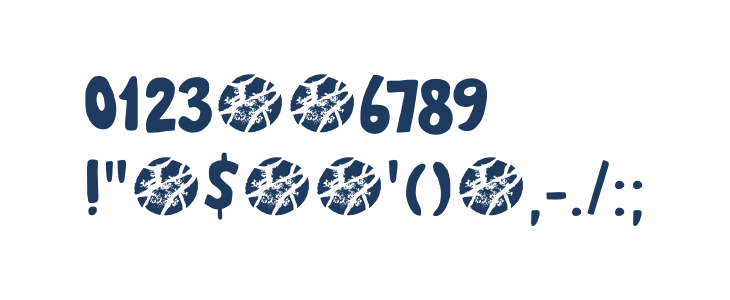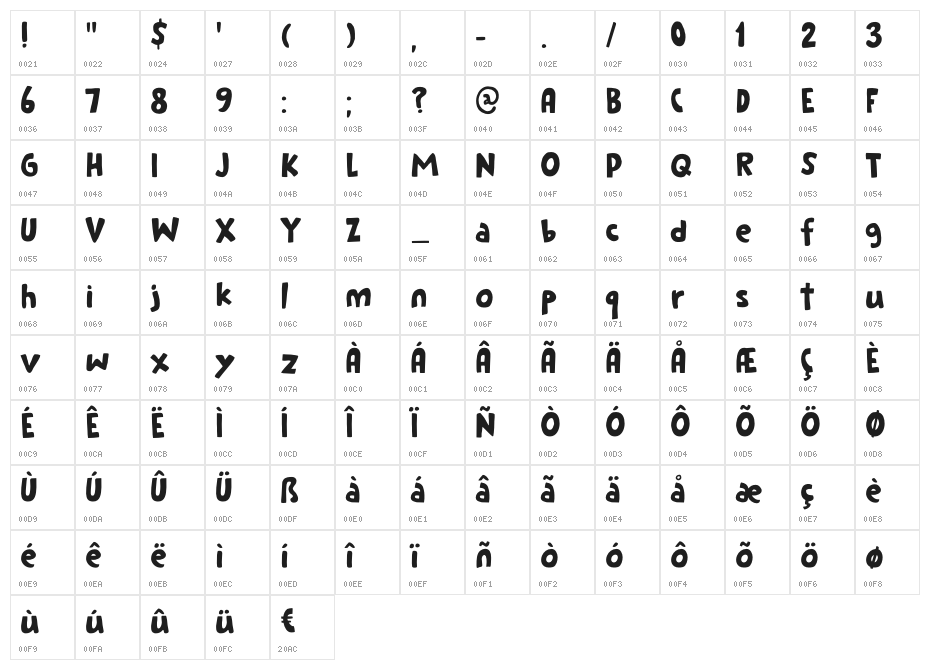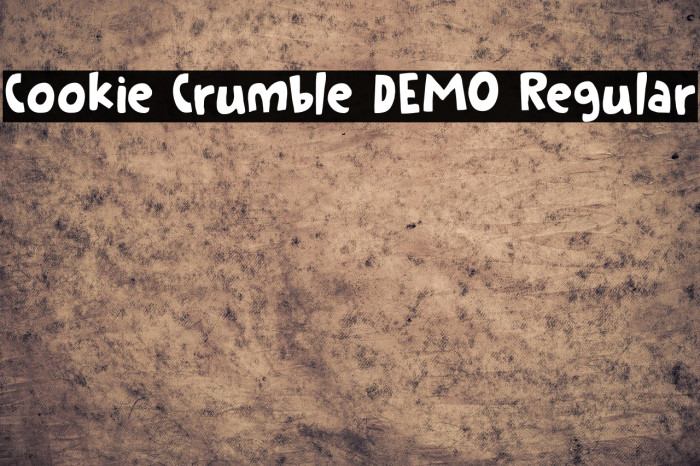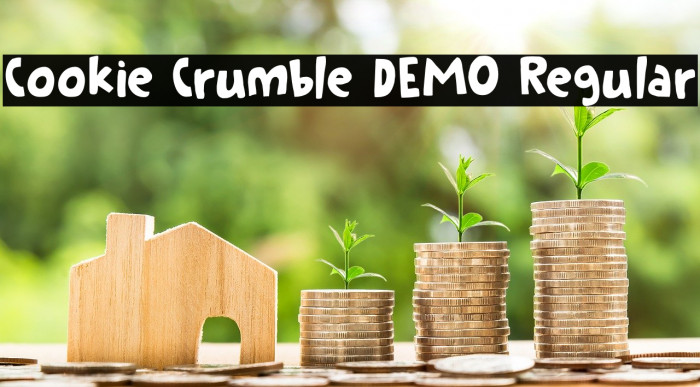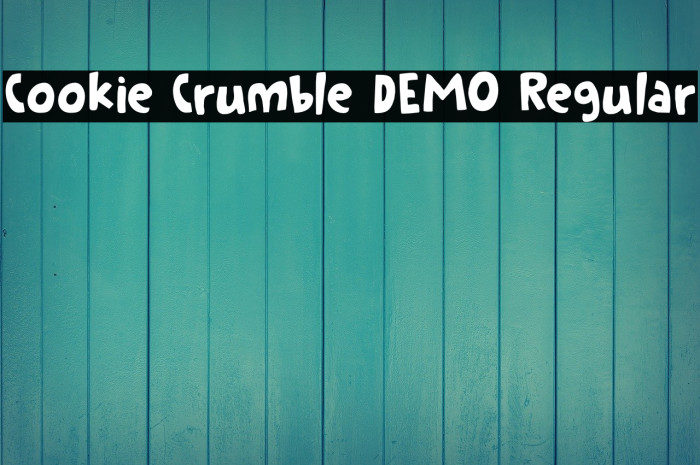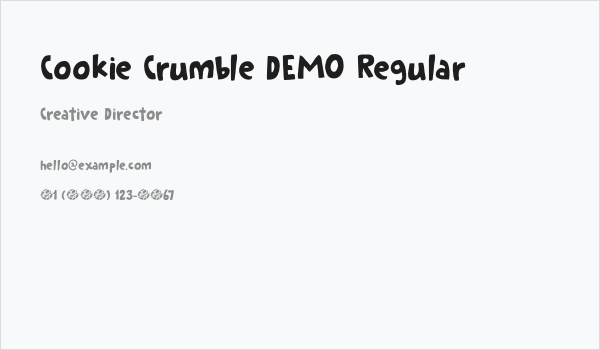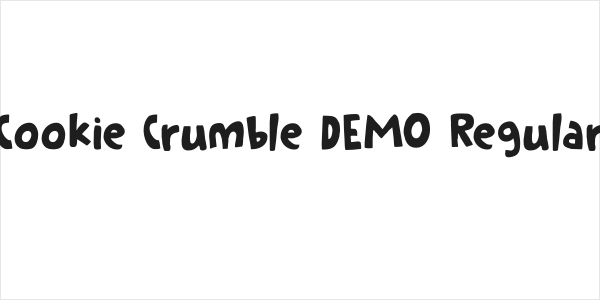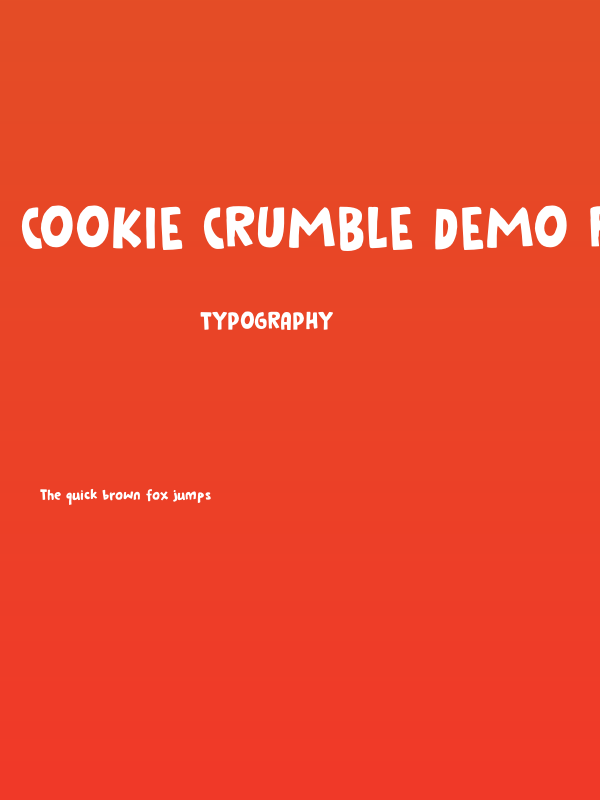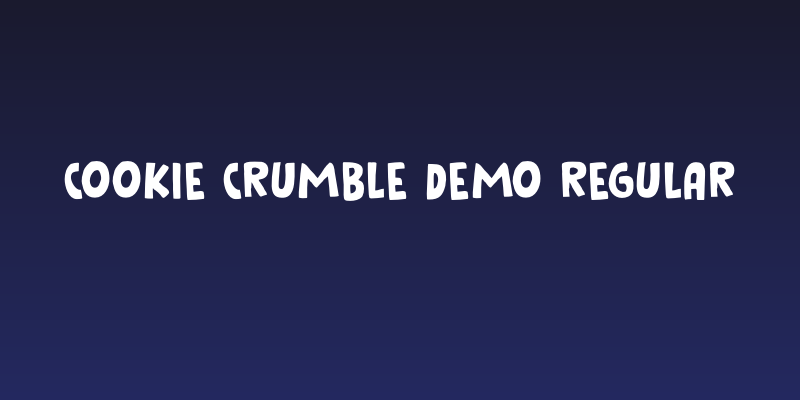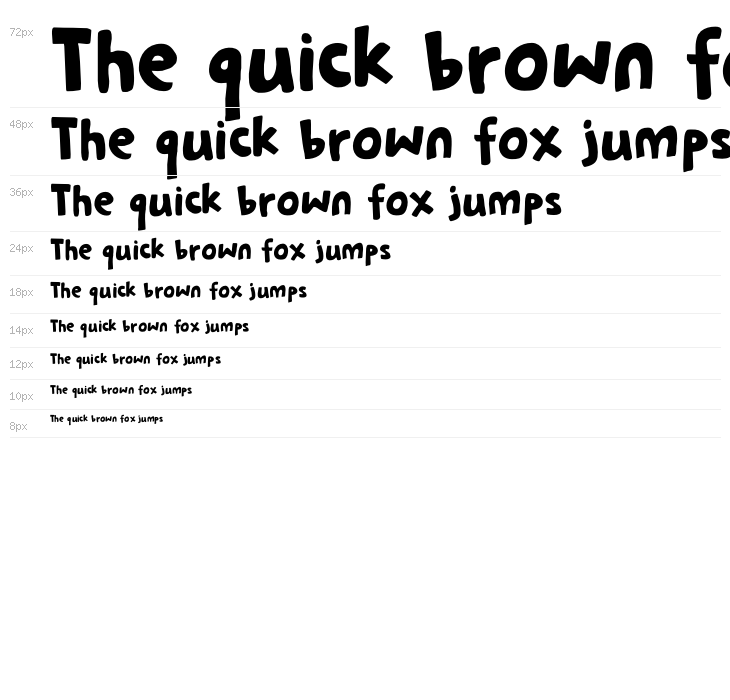
Cookie Crumble DEMO Regular Font
Cookie Crumble DEMO Regular Description
This playful and bold font features a hand-drawn, whimsical style that evokes a sense of fun and creativity. The characters are irregular and slightly uneven, giving them a unique, organic feel. The strokes are thick and rounded, contributing to a friendly and approachable appearance. The font includes both uppercase and lowercase letters, numbers, and a variety of special characters. Its distinct, chunky design makes it stand out, perfect for projects that require a touch of personality and charm.
| Proposed Projects | Ideal for children's books, playful branding, greeting cards, and creative posters. |